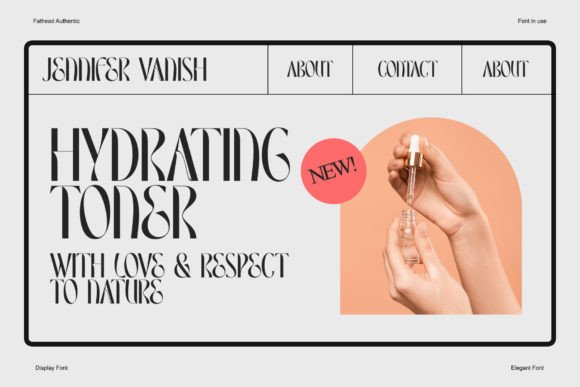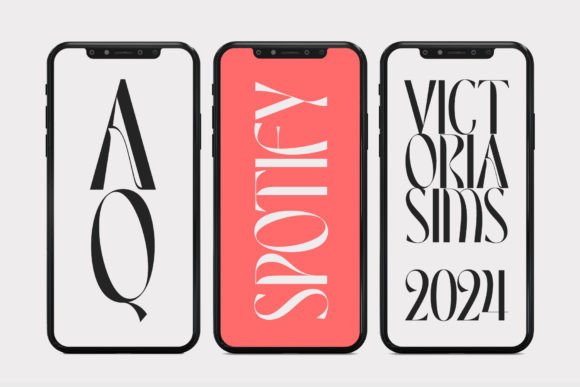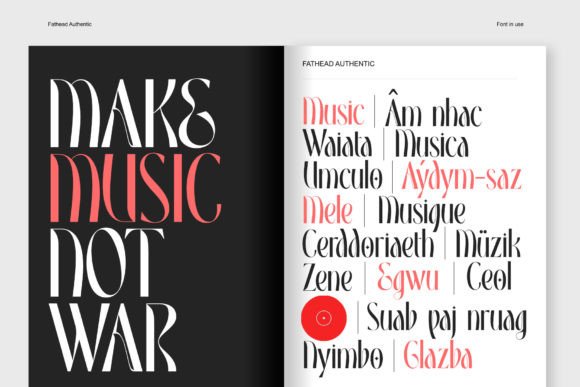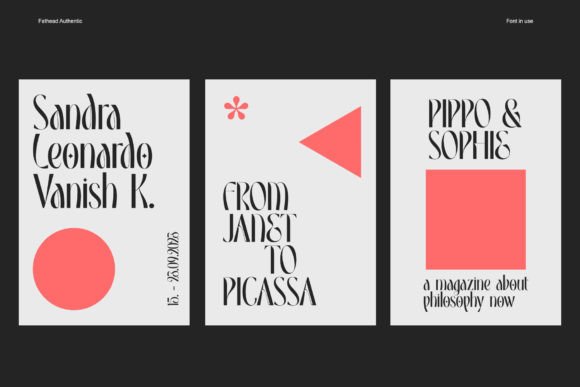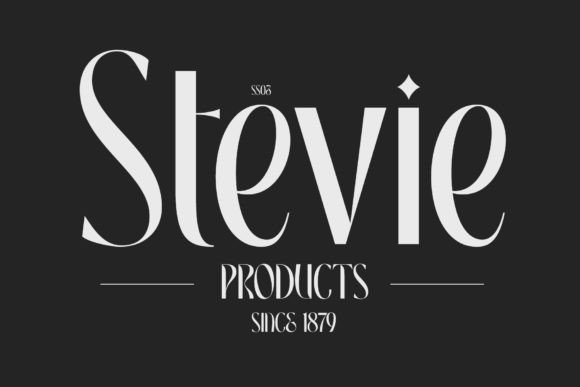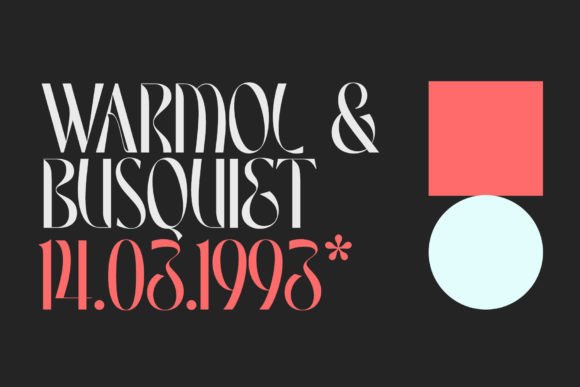
Introduction to Fathead Authentic Font
Fathead Authentic is a special, modern-style font.
Made with pinpoint accuracy, beautiful curves, alternate characters, and ties that make your work very special It’s perfect for branding designs, logos, greeting cards, titles, packaging, and other designs.
Key Features of Fathead Authentic Font
Why Choose Fathead Authentic Font?
Fathead Authentic Font offers exceptional quality and versatility, making it a valuable addition to your design toolkit. Whether you’re creating for personal projects or commercial use, Fathead Authentic Font delivers professional results.